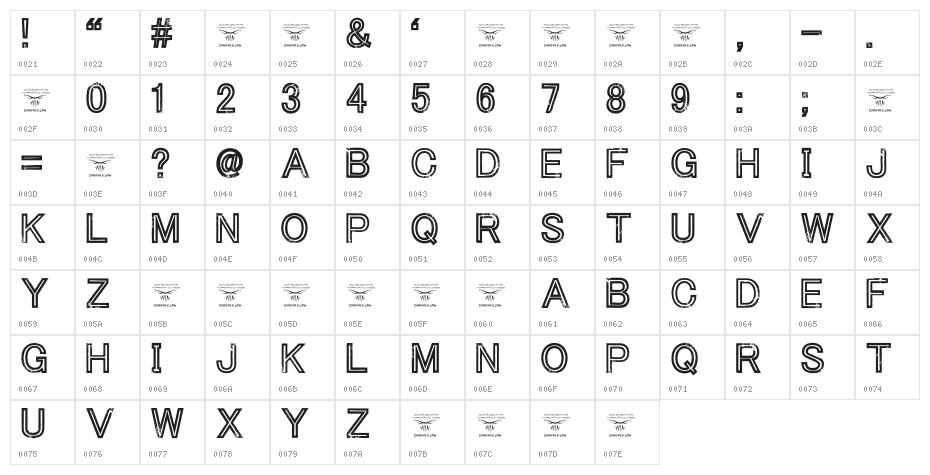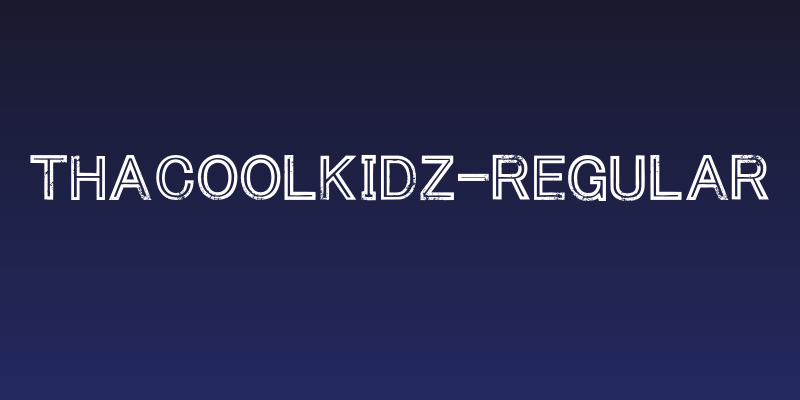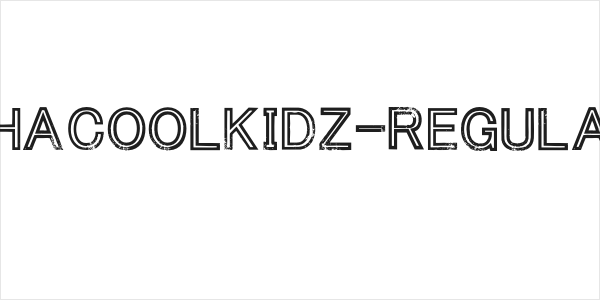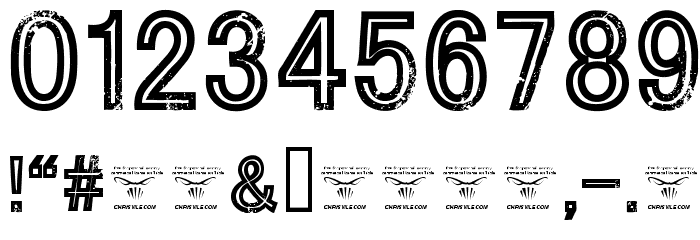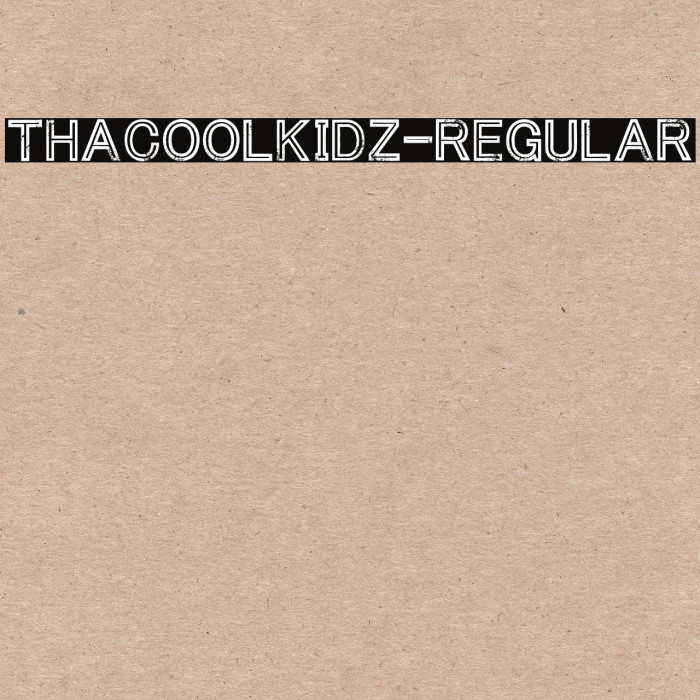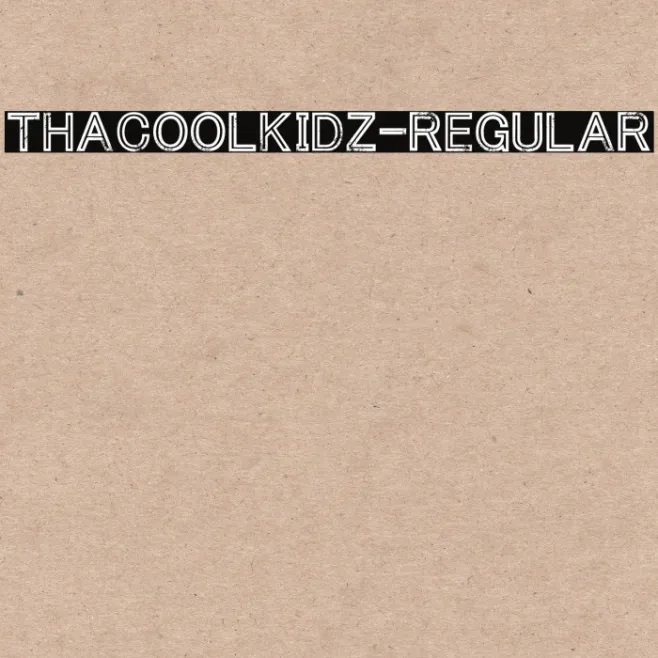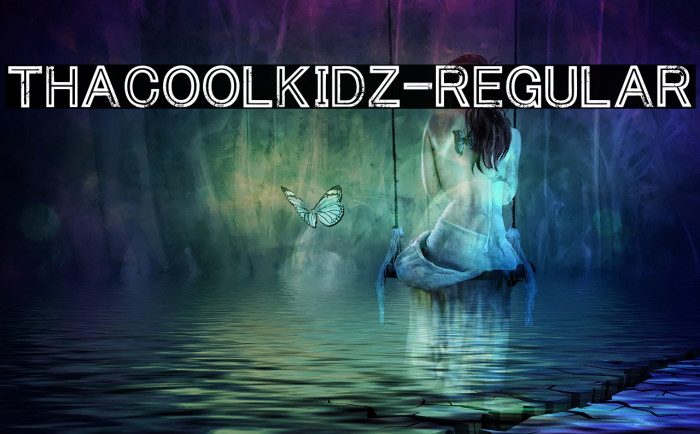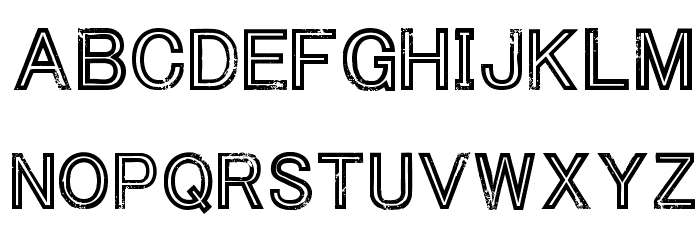
ThaCoolKidz-Regular Font
ThaCoolKidz-Regular Description
This font features a bold, distressed style with a modern edge, characterized by its rough, textured appearance. The uppercase and lowercase letters maintain a consistent width, providing a balanced look. The numbers and special characters share this rugged aesthetic, making the font ideal for projects that require a gritty, urban feel. Its unique design elements make it stand out, while still being legible and versatile.